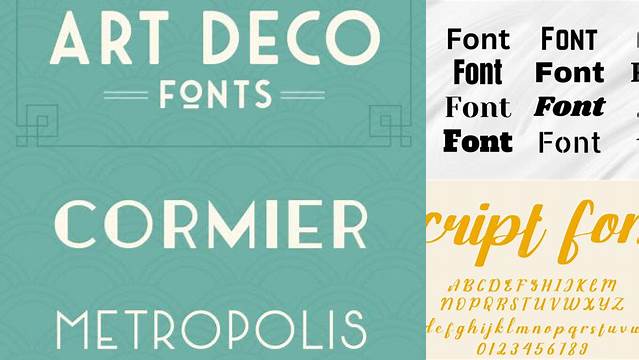
Font Guide: Types, Selection, And Branding
In the vast realm of design and communication, fonts reign supreme. They are the silent architects of your message, shaping not only how your words look but also how they are perceived. From the elegant curves of a script font to the stark simplicity of a sans-serif, fonts have the power to evoke emotions, establish brand identity, and guide the reader's eye. Let's dive deep into the mesmerizing world of fonts, exploring their history, classifications, and practical applications. This ultimate guide will help you navigate the landscape of typography, so get ready to unleash the power of your words with the perfect font!
The Historical Journey of Fonts: A Glimpse into the Past
Before we delve into the specifics of font types, it's essential to understand their origins. Typography has a rich history, evolving alongside the development of writing and printing technology. The story begins with the advent of the printing press in the 15th century, which revolutionized the way information was disseminated. Before Johannes Gutenberg's invention, books were painstakingly hand-copied, making them a luxury item. The printing press allowed for mass production, and with it came the need for standardized letterforms.
Gutenberg's printing press used movable type, individual characters that could be arranged and rearranged to create text. This was a groundbreaking innovation that paved the way for the development of various font styles. Early fonts were based on the blackletter style, which was commonly used in medieval manuscripts. These fonts were characterized by their ornate and elaborate letterforms, reflecting the aesthetics of the time. As printing technology advanced, so did font design. The 16th and 17th centuries saw the emergence of serif fonts, such as Garamond and Caslon, which are characterized by their small strokes, or serifs, at the end of each letter. These fonts were inspired by the Roman letterforms and were known for their readability and elegance.
The 18th century brought about the development of transitional fonts, which bridged the gap between old-style serifs and modern serifs. These fonts, such as Baskerville, featured a higher contrast between thick and thin strokes, giving them a more refined appearance. The 19th century witnessed the rise of modern fonts, like Didot and Bodoni, which had a very high contrast and a more geometric design. These fonts were popular for their boldness and sophistication. The invention of the linotype machine in the late 19th century further accelerated the printing process and led to the development of even more fonts. This machine allowed for the mechanical setting of type, making it easier and faster to produce text.
The 20th century brought about the digital revolution, which transformed the world of typography once again. The development of computers and digital fonts opened up new possibilities for font design. Sans-serif fonts, such as Helvetica and Arial, became increasingly popular due to their clean and minimalist appearance. Digital fonts also allowed for greater flexibility in font size, style, and spacing, giving designers unprecedented control over their work. The evolution of fonts reflects not only technological advancements but also changing cultural and aesthetic preferences. Today, we have access to a vast library of fonts, each with its unique characteristics and intended purpose. From classic serifs to modern sans-serifs and everything in between, the world of fonts continues to evolve, offering endless creative possibilities.
Decoding Font Classifications: Serif, Sans-Serif, and Beyond
Fonts can be broadly classified into several categories, each with its unique characteristics and applications. Understanding these classifications is crucial for making informed font choices that align with your design goals. Let's explore some of the most common font categories and their key features.
Serif fonts are characterized by the small strokes, or serifs, at the end of each letter. These serifs provide visual cues that help guide the reader's eye across the page, making serif fonts generally considered more readable for body text. Some popular serif fonts include Times New Roman, Georgia, and Garamond. Serif fonts are often used in print media, such as books, newspapers, and magazines, where readability is paramount. They can also add a touch of elegance and sophistication to your designs.
Sans-serif fonts, as the name suggests, do not have serifs. They have a clean and modern appearance, making them popular for headlines, headings, and digital content. Sans-serif fonts are often perceived as more contemporary and approachable. They are also well-suited for screens, as their simpler letterforms are easy to read at various sizes and resolutions. Common sans-serif fonts include Helvetica, Arial, and Open Sans. These fonts are a great choice for websites, mobile apps, and other digital interfaces.
Script fonts mimic handwriting and are often used for decorative purposes. They can range from elegant and formal to casual and playful. Script fonts can add a personal touch to your designs but should be used sparingly, as they can be difficult to read in large blocks of text. Some popular script fonts include Brush Script, Lobster, and Pacifico. These fonts are frequently used for invitations, logos, and other designs where a touch of personality is desired.
Monospace fonts have fixed-width characters, meaning that each letter takes up the same amount of horizontal space. This makes them ideal for code, programming, and other applications where precise alignment is necessary. Monospace fonts are often used in text editors and code editors. Examples of monospace fonts include Courier New and Monaco. The consistent spacing of monospace fonts makes it easy to compare and align characters, making them a valuable tool for developers and programmers.
Display fonts are designed for headlines, titles, and other display purposes. They often have unique and eye-catching designs that are not suitable for body text. Display fonts can be used to add visual interest and personality to your designs but should be used judiciously, as they can be difficult to read in large quantities. Display fonts include a wide variety of styles, ranging from bold and impactful to quirky and whimsical. Examples of display fonts include Impact, Bebas Neue, and Cooper Black.
Choosing the Right Font: A Practical Guide
Choosing the right font can significantly impact the effectiveness of your design. The right font can grab your audience's attention, reinforce your message, and establish your brand identity. The wrong font can be distracting, difficult to read, and even detract from your credibility. So, how do you choose the right font? Here's a practical guide to help you make informed decisions.
Consider your audience. Who are you trying to reach? Your target audience's preferences and expectations should guide your font choices. For example, a design aimed at a younger audience might benefit from a modern sans-serif font, while a design for a more mature audience might be better suited to a classic serif font. Think about their age, interests, and the overall tone you want to convey. Understanding your audience is key to selecting a font that resonates with them.
Define your message. What are you trying to communicate? The font you choose should complement your message and help you achieve your communication goals. If you want to convey a sense of professionalism and trustworthiness, a classic serif font might be a good choice. If you want to convey a sense of modernity and innovation, a sans-serif font might be more appropriate. The font should align with the overall tone and style of your message. Think about the message you want to send.
Pay attention to readability. Readability is crucial, especially for body text. Choose fonts that are easy to read at the size you intend to use them. Avoid fonts that are overly ornate or have complex letterforms, as they can be difficult to decipher. Consider the font's x-height, the height of the lowercase letters, as a larger x-height generally improves readability. Make sure the font is legible at different sizes and on different devices.
Think about the context. Where will your design be displayed? The context in which your design will be used should influence your font choices. For print media, you have more flexibility in font selection, as the resolution is generally higher. However, you should still prioritize readability. For digital media, readability is even more critical, as screens can vary in resolution and size. Consider the size of the screen and the viewing distance. Choose fonts that are easy to read on screens and that are responsive to different screen sizes.
Consider the personality of the font. Fonts have personalities. Some fonts are elegant and sophisticated, while others are bold and playful. Choose a font that reflects your brand's personality and the overall tone of your design. Your font choice should align with your brand's image and resonate with your target audience. Reflect on the feeling you want to evoke.
Pair fonts thoughtfully. Combining multiple fonts can create visual interest, but it's important to do it thoughtfully. Avoid using too many different fonts, as this can make your design look cluttered and unprofessional. Choose fonts that complement each other and that have a similar aesthetic. Create a harmonious and balanced design by pairing fonts effectively.
Fonts and Branding: Creating a Consistent Visual Identity
Fonts play a crucial role in establishing a brand's visual identity. They're a key component of your brand's personality, conveying a sense of your company's values, and communicating its message to the world. A well-chosen font can create a strong and memorable brand, helping you stand out from the competition. Here's how fonts can be used to enhance your brand.
Consistency is key. Consistency in font usage across all your branding materials is paramount. This includes your website, social media, marketing materials, and any other visual communication you have with your audience. Consistent font usage builds brand recognition and helps customers identify your brand quickly and easily. By creating a uniform look, you establish a sense of professionalism and create a cohesive brand experience. Make sure your font is always consistent.
Choosing the right font for your brand requires careful consideration. The font should reflect your brand's personality and values. Do you want to appear trustworthy, innovative, or playful? The font should align with your brand's overall tone and style. This alignment ensures that your visual communication is consistent with the message you want to convey. Research is important, so choose the appropriate font for your brand.
Consider the target audience. Fonts should resonate with your target audience. The font should be easy to read and visually appealing to the people you are trying to reach. Research their preferences and the design trends they engage with. This targeted approach makes your brand more relevant to your audience, building stronger connections. Understanding your audience helps your brand connect.
Create a brand style guide. A style guide that outlines your font usage is a valuable tool. This guide should specify which fonts to use for headlines, body text, and other elements. It should also provide information on font sizes, weights, and colors. This document ensures that everyone within your organization uses the correct fonts, maintaining consistency across all your branding materials. Make sure everyone follows this guide.
Regularly review and update your brand's font usage. As your brand evolves, your font choices might need to evolve too. Stay up-to-date with design trends and ensure your font still reflects your brand's personality and values. Periodically revisit your style guide to ensure it aligns with the current state of your brand. This regular review helps you maintain a current and effective brand identity. Keep up with font trends.
Conclusion: Embracing the Power of Typography
Fonts are not just about aesthetics; they are powerful communication tools that shape our perception of the world around us. By understanding the history, classifications, and practical applications of fonts, you can unlock their potential and create designs that resonate with your audience. From choosing the right font for your website to crafting a brand identity that captures the essence of your business, typography is a key component of effective design. Embrace the power of typography, experiment with different font styles, and let your words come to life. The world of fonts is vast and ever-evolving, so start exploring today and see how fonts can transform your designs and your message!